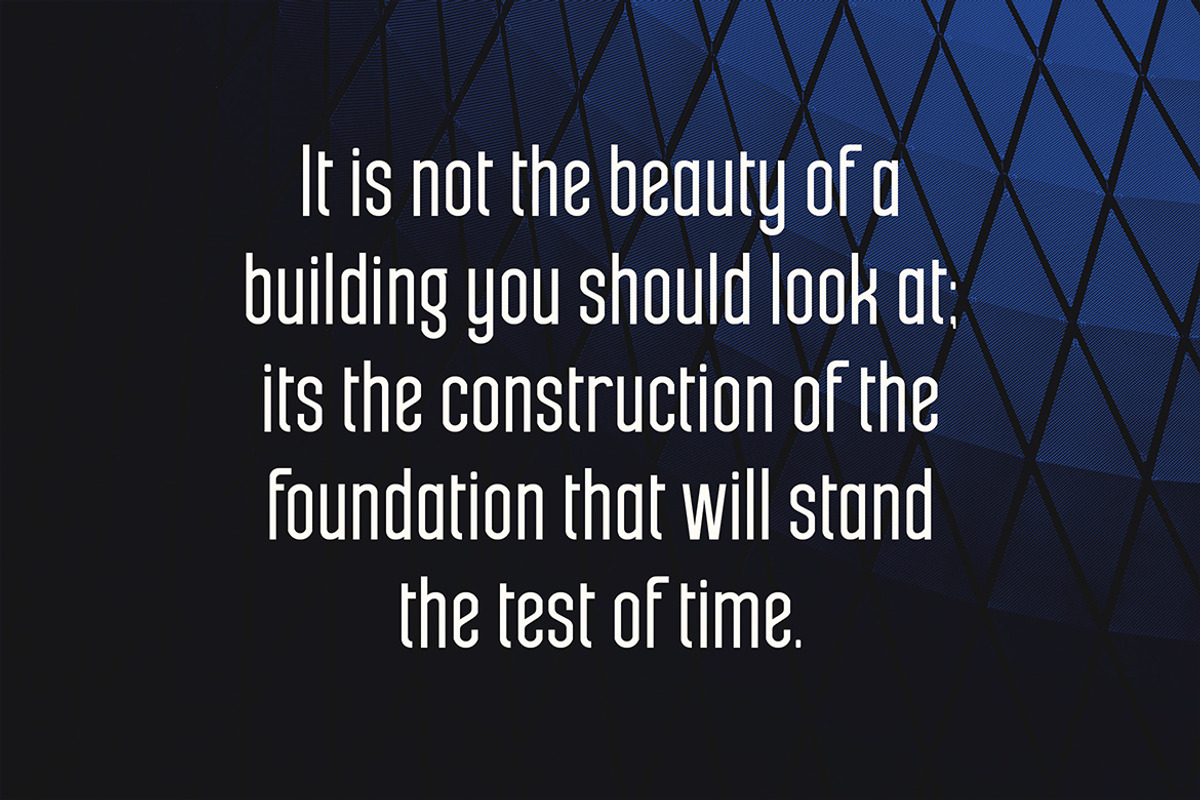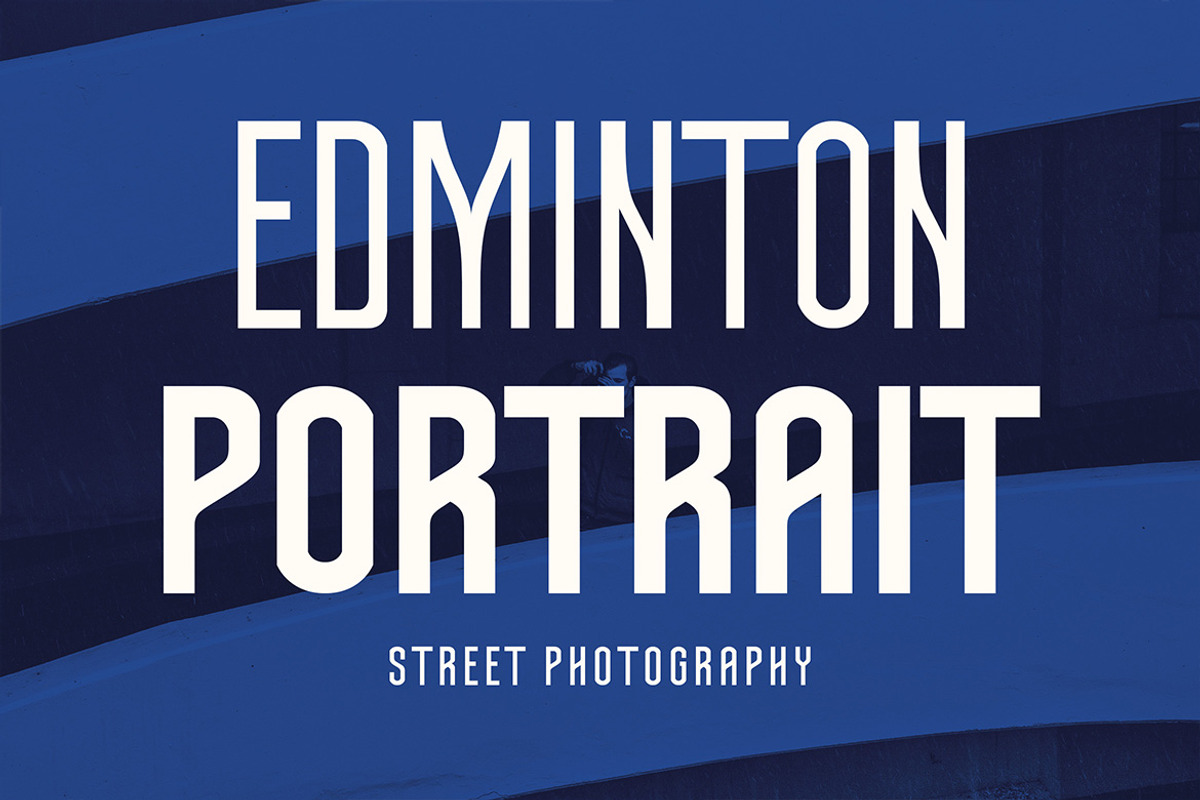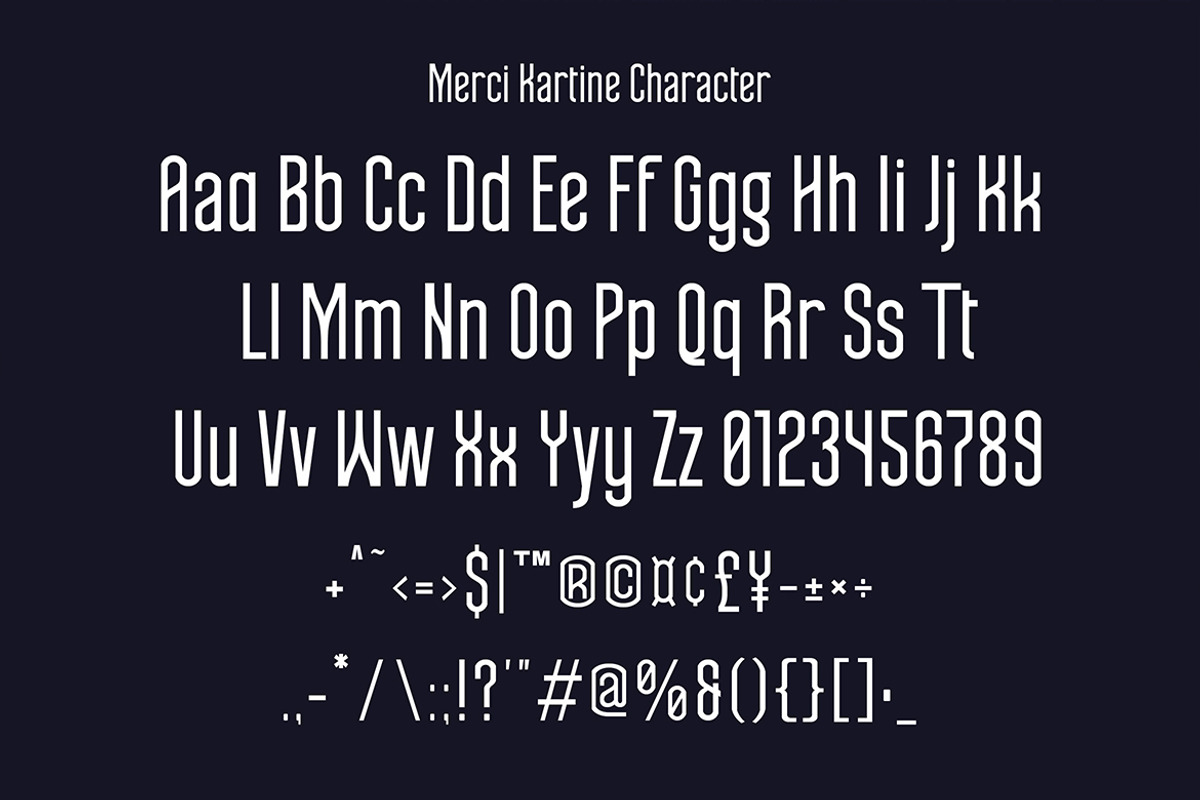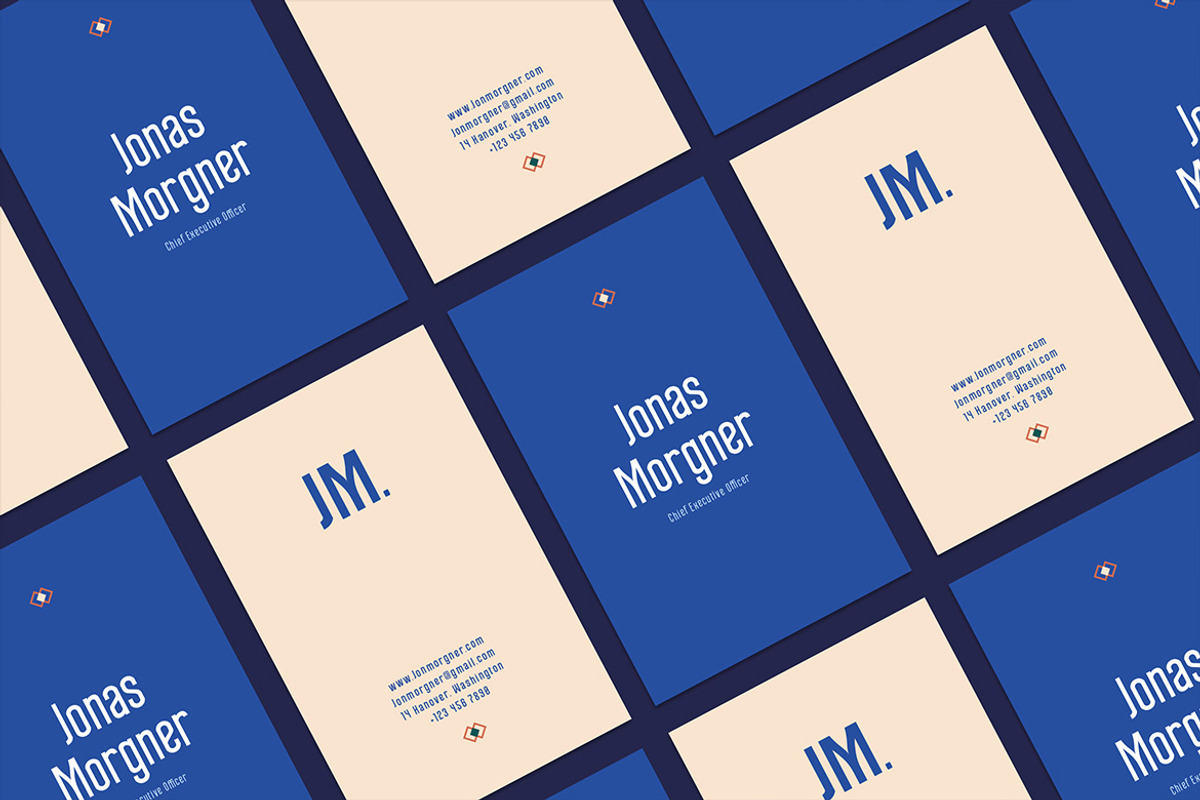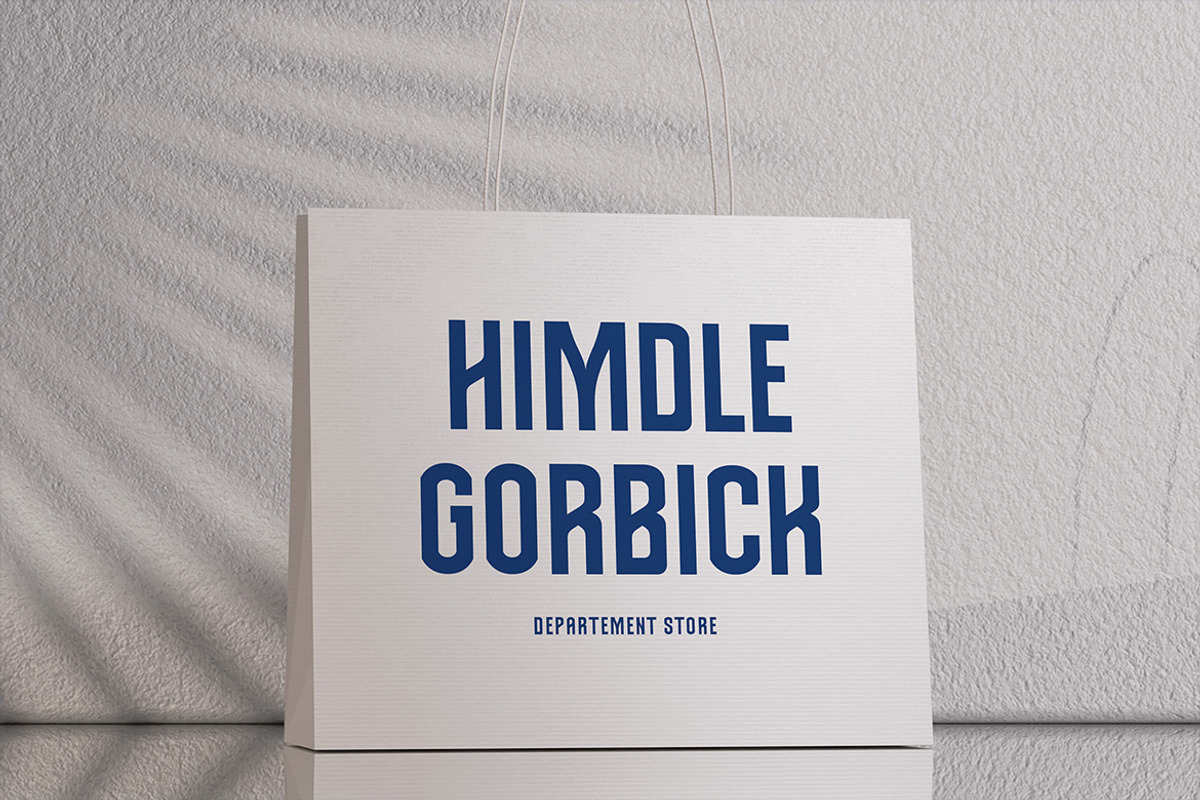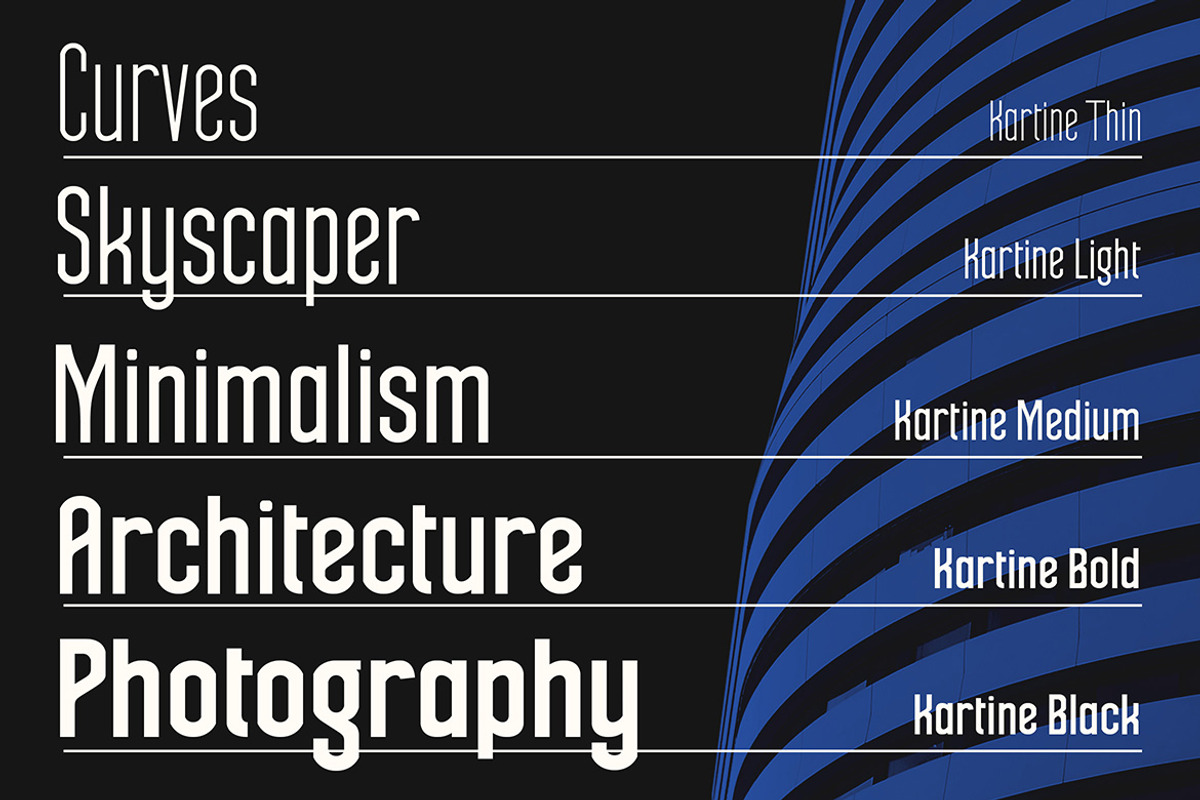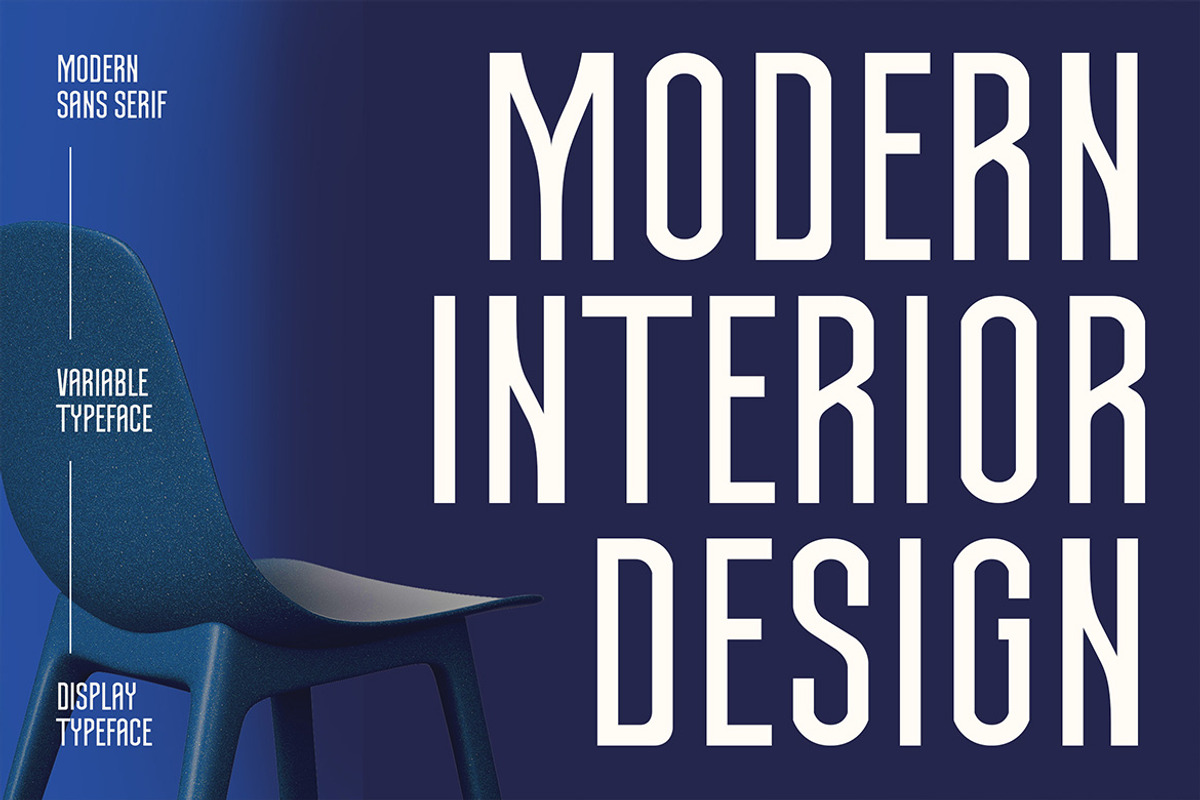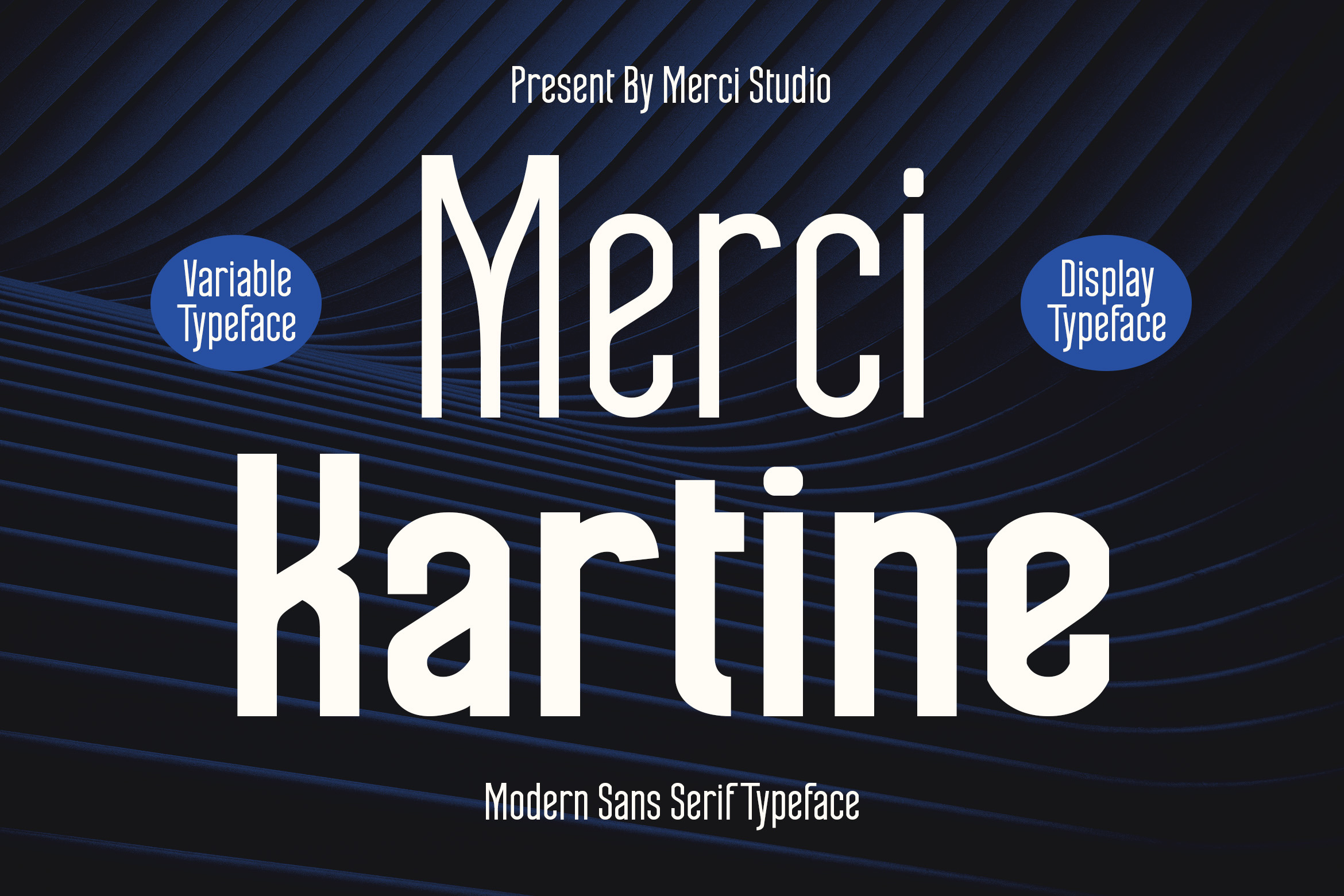
Merci Kartine – Typeface
Title: Merci Kartine – Modern Sans Serif Typeface
Description:
Merci Kartine is a modern sans serif typeface that combines sleek minimalism with bold contemporary style. Designed as both a variable and display typeface, it offers exceptional versatility for branding, headlines, packaging, posters, and digital design. With its clean lines, tall proportions, and refined structure, Merci Kartine ensures your typography remains impactful and memorable. Perfect for projects that require a professional yet stylish edge, this font adapts effortlessly to both creative and corporate settings. Whether you’re building a strong brand identity or crafting elegant editorial layouts, Merci Kartine is a powerful choice for designers seeking clarity and modernity.